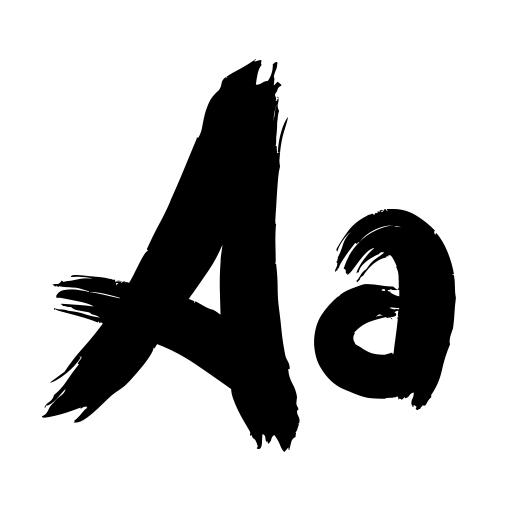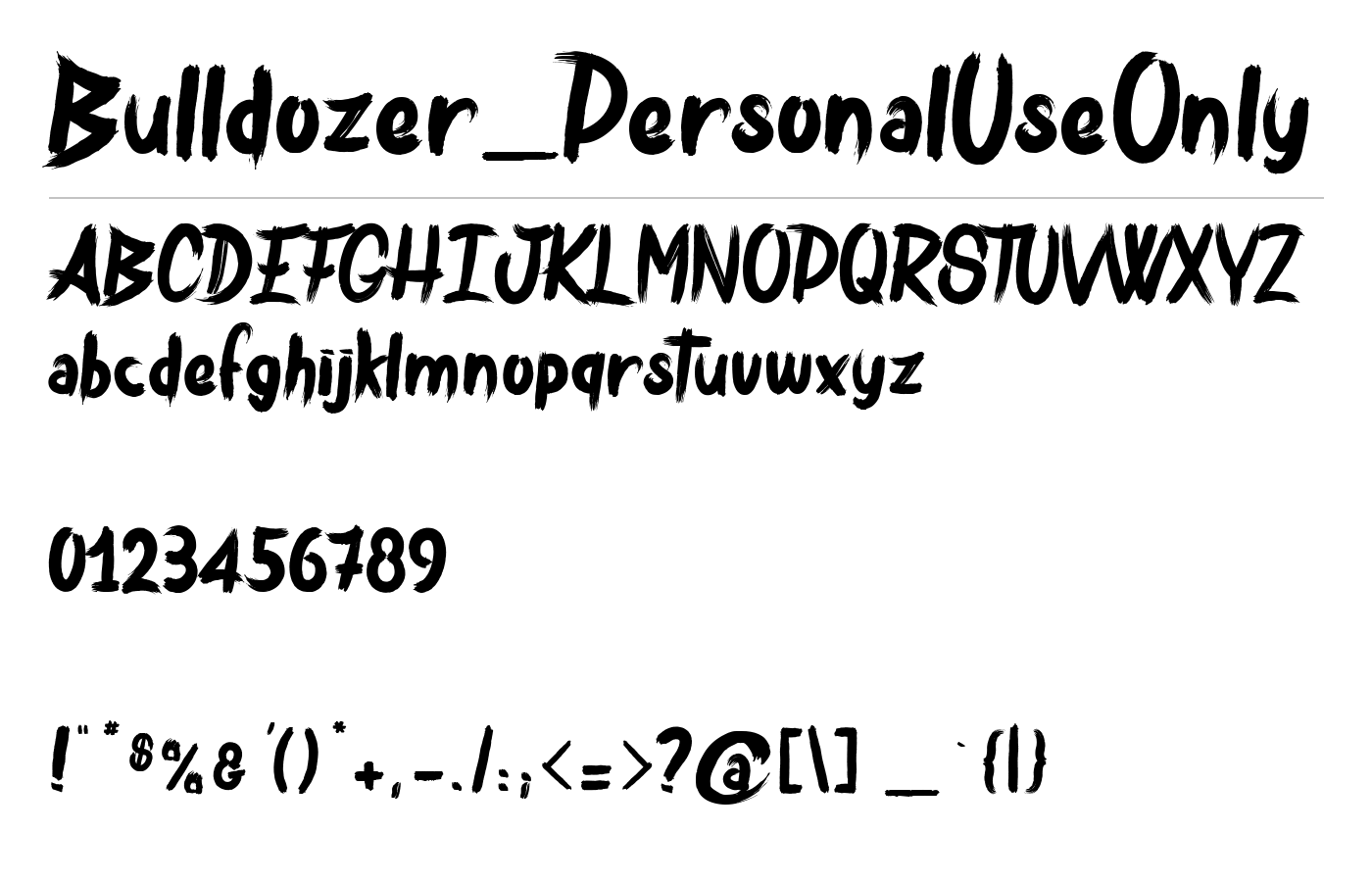
Bulldozer_PersonalUseOnly is a bold, brush-style sans serif font that conveys a raw, energetic feel with its rough, textured strokes and irregular edges. Its hand-painted look makes it ideal for designs that want to appear dynamic, gritty, and creative, perfect for posters, branding, and casual headlines where a strong, artistic personality is desired. This font stands out by mixing playful imperfection with bold impact, making it great for projects that seek a lively and informal vibe.
Bulldozer_PersonalUseOnly Font
About Bulldozer_PersonalUseOnly Font
| Font family | Bulldozer_PersonalUseOnly Font |
| Designer | Gregory Medina ©dcodesign |